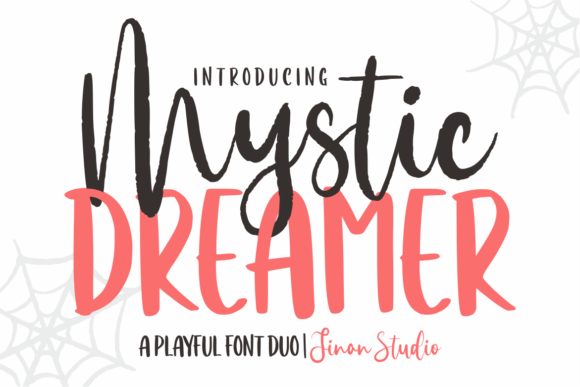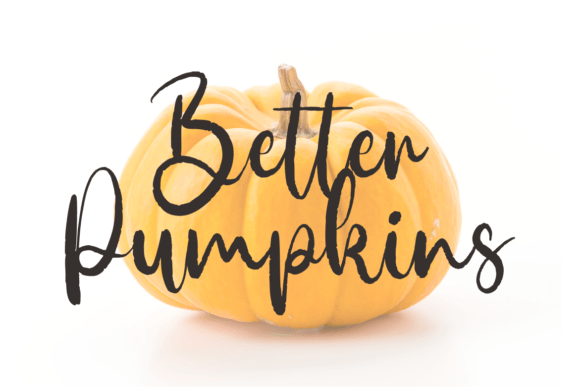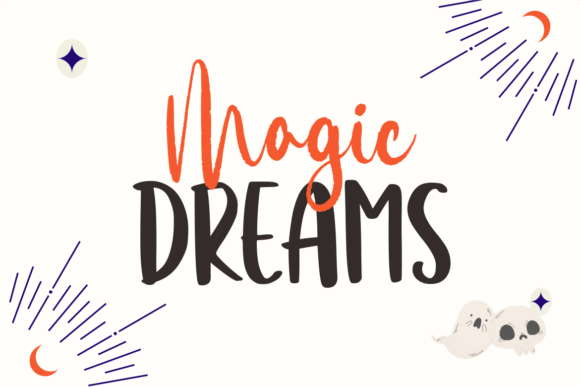
Mystic Dreamer Duo Font
About the Mystic Dreamer Duo Font
Add a touch of class to your work with the Mystic Dreamer Duo Font, a truly exceptional typeface. Mystic Dreamer Duo is a spooky, cute, and playful handwritten font duo (script and display sans serif). Whimsical and a bit mysterious, this font is perfect for all your horror-themed and Halloween projects.
This playful duo excels in projects requiring a touch of whimsical darkness; think Halloween branding, spooky children’s book illustrations, or eye-catching social media graphics. It’s ideal for headlines, short text blocks, and logos, adding a unique and memorable visual element. However, its informal nature makes it less suitable for body text or applications demanding high readability, such as lengthy articles or user interfaces.
Pairing Mystic Dreamer Duo with a clean sans-serif like Montserrat for body copy provides a strong contrast, balancing the script’s playful energy with a sense of order. For a more sophisticated feel, consider pairing the display font with a classic serif like Garamond, creating a compelling tension between the spooky script and refined typography.
The overall personality is best described as boldly playful yet subtly eerie; it evokes a sense of fun mixed with a touch of mystery, making it a perfect choice for brands targeting a younger audience with an interest in fantasy, horror, or the macabre.